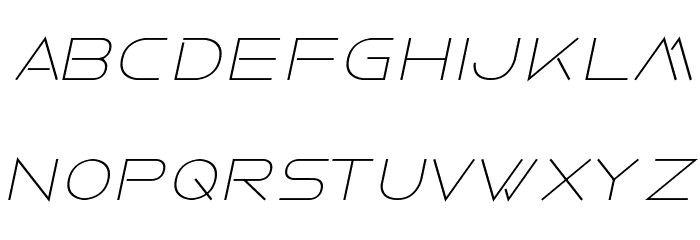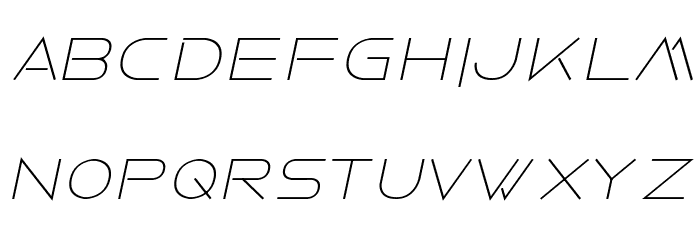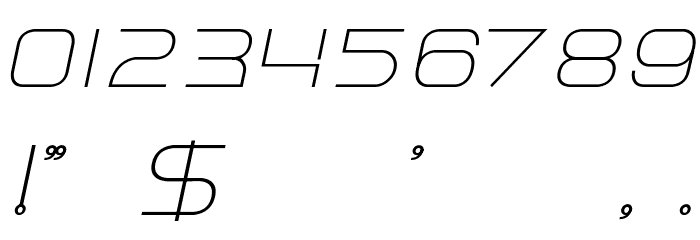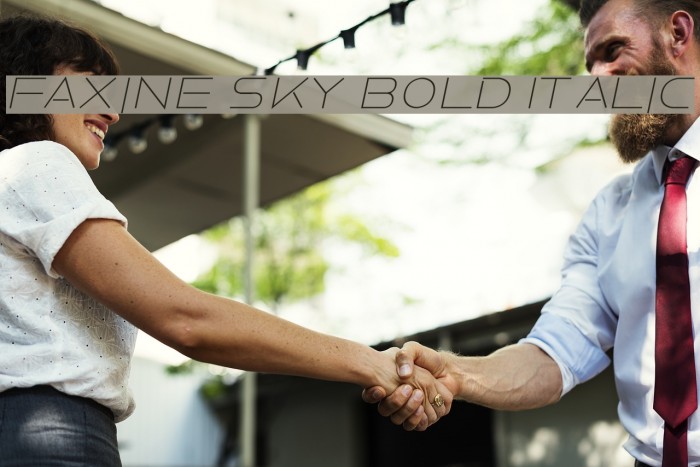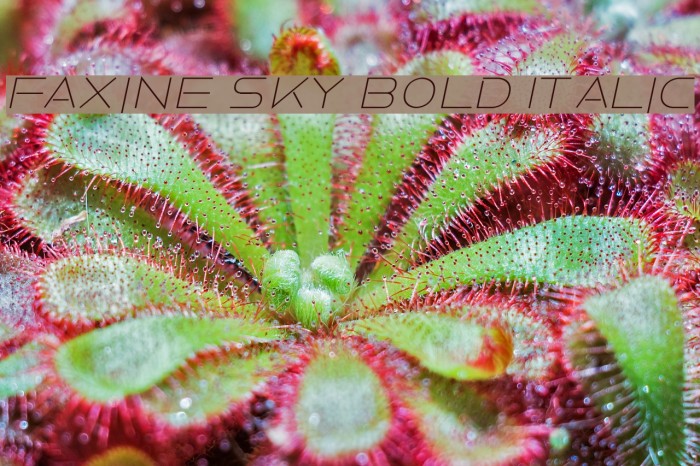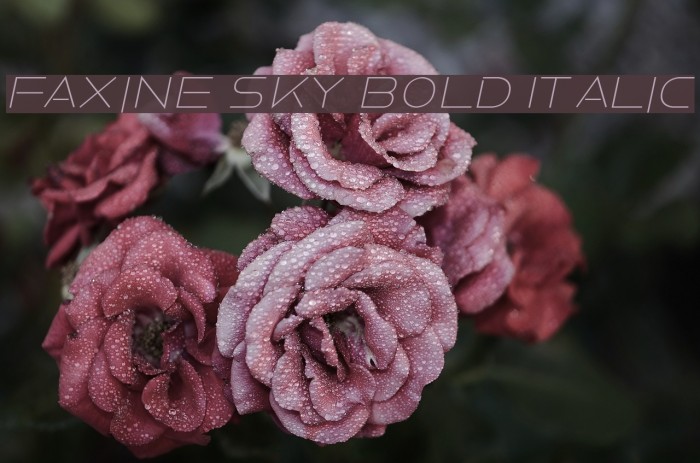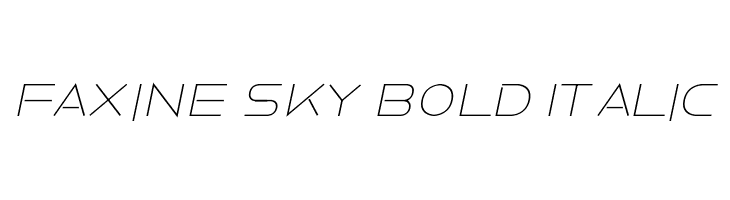
Faxine Sky Bold Italic Font
This font exhibits a sleek, modern design with a futuristic flair. The characters are crafted with a geometric precision, featuring clean lines and sharp angles. The italic style adds a dynamic, forward-leaning motion to the text, enhancing its contemporary appeal. The uppercase and lowercase letters maintain a consistent style, ensuring readability and uniformity. The numerals are distinct and align well with the overall aesthetic, while the special characters complement the set with a minimalist touch. This font is ideal for projects that require a modern, tech-savvy look.
A sleek, modern italic font with geometric precision and futuristic style.
- Proposed Projects: Ideal for tech branding, modern advertising, digital interfaces, and futuristic design projects.
- Use Case: Headlines, Logos, Digital Interfaces